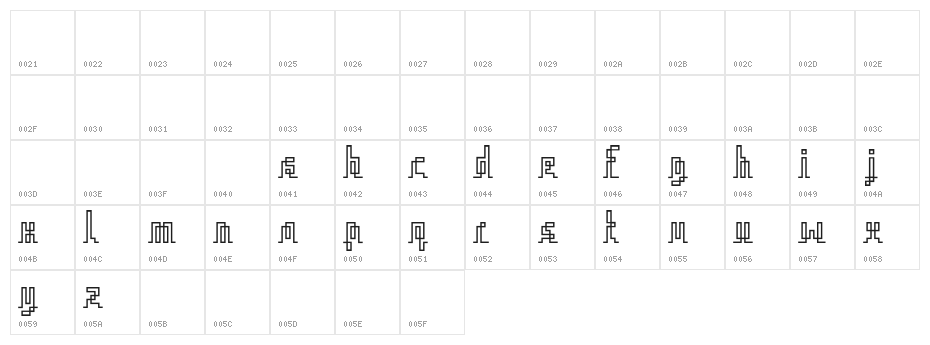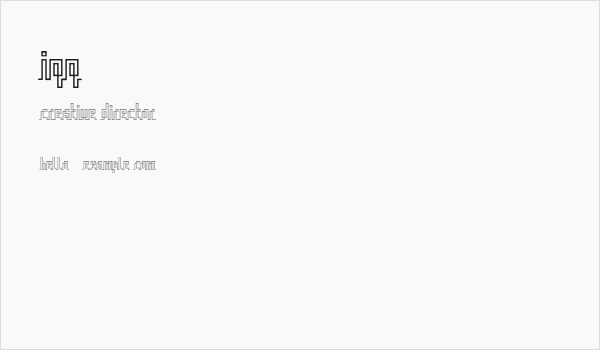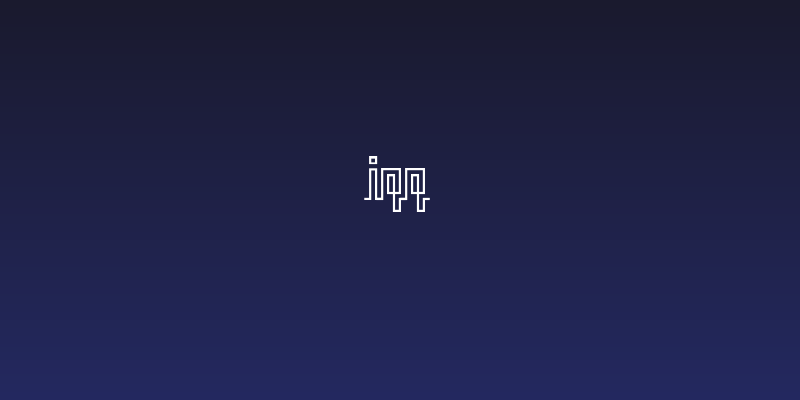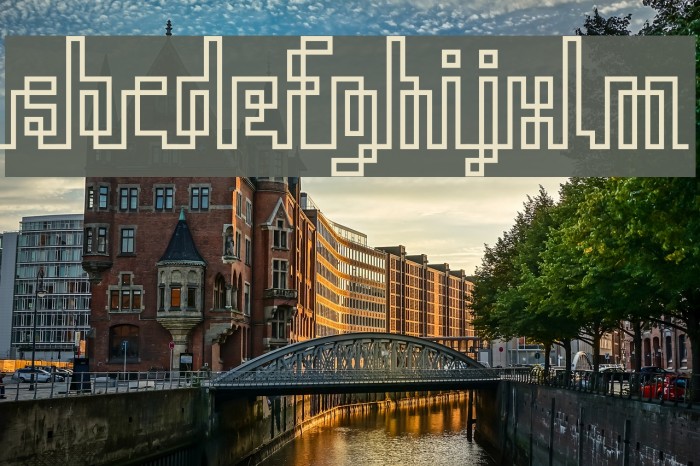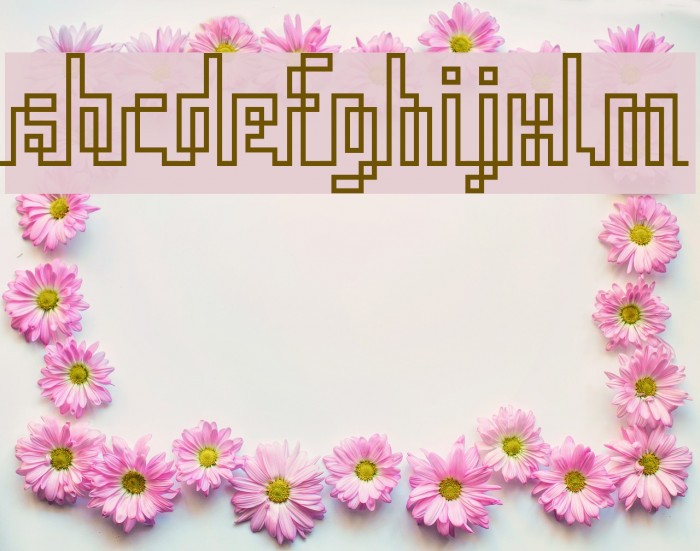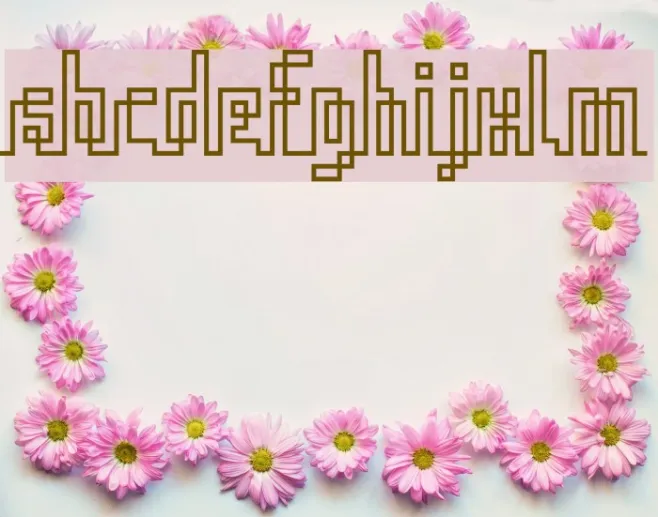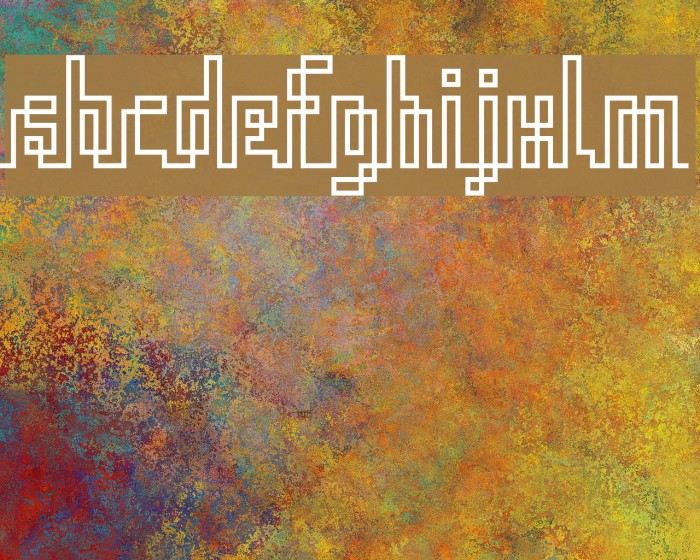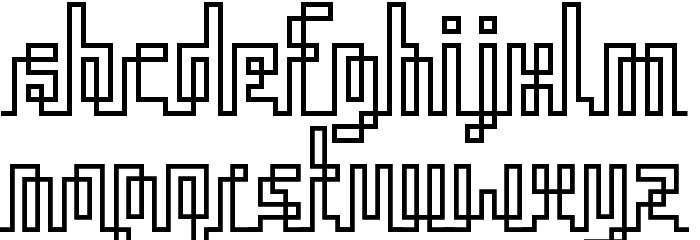
Iqq Font
Iqq Description
This font features a unique, pixelated design reminiscent of early digital or arcade game typography. Each character is constructed with a series of straight lines and right angles, creating a blocky, geometric appearance. The font maintains a consistent stroke width throughout, contributing to a uniform and cohesive look. Its retro aesthetic is both playful and nostalgic, making it ideal for projects that aim to evoke a sense of vintage digital culture. The characters are well-defined and easily distinguishable, despite their unconventional shapes, ensuring readability while maintaining a distinct style.
| Proposed Projects | Ideal for video game design, retro-themed posters, digital art projects, and tech-related branding. |